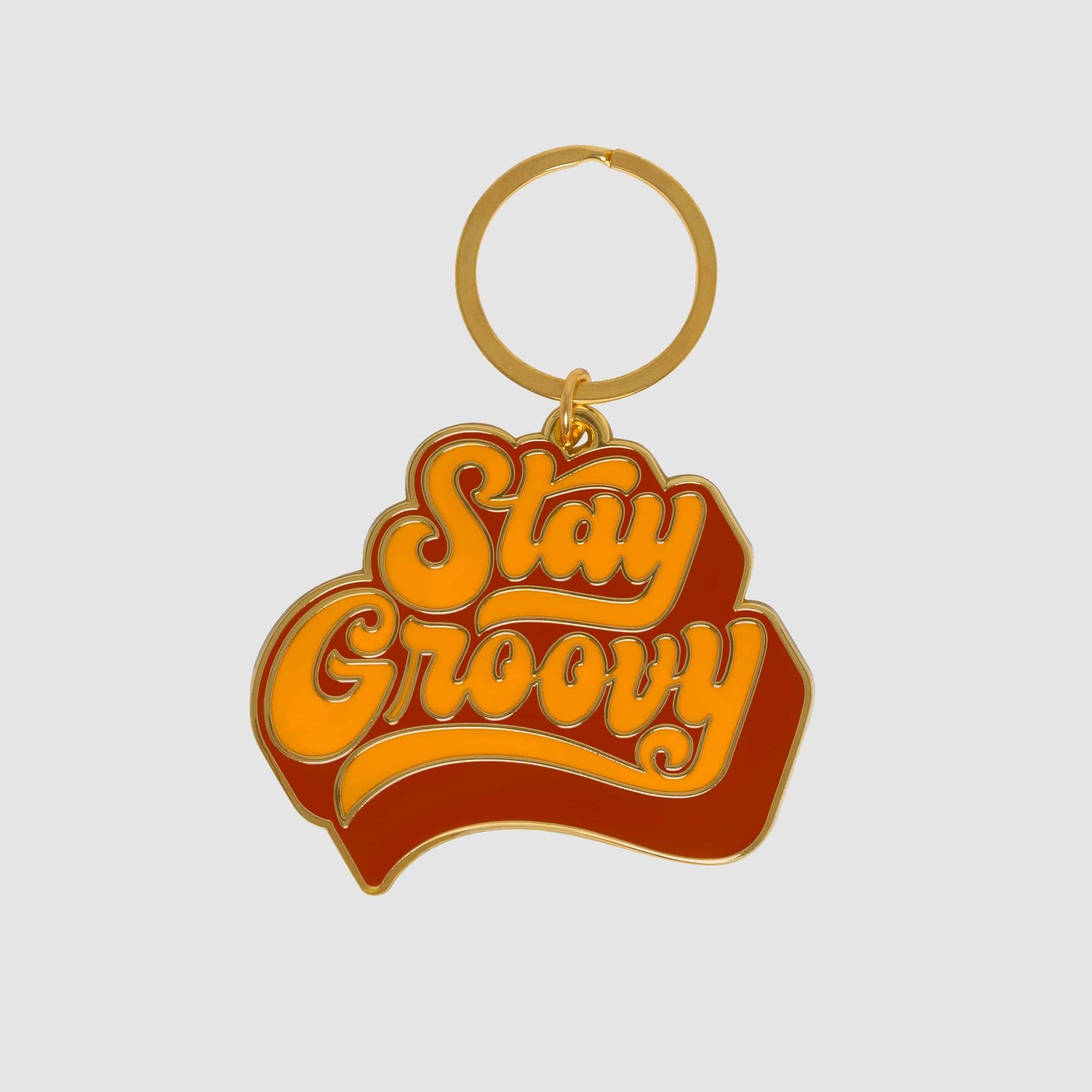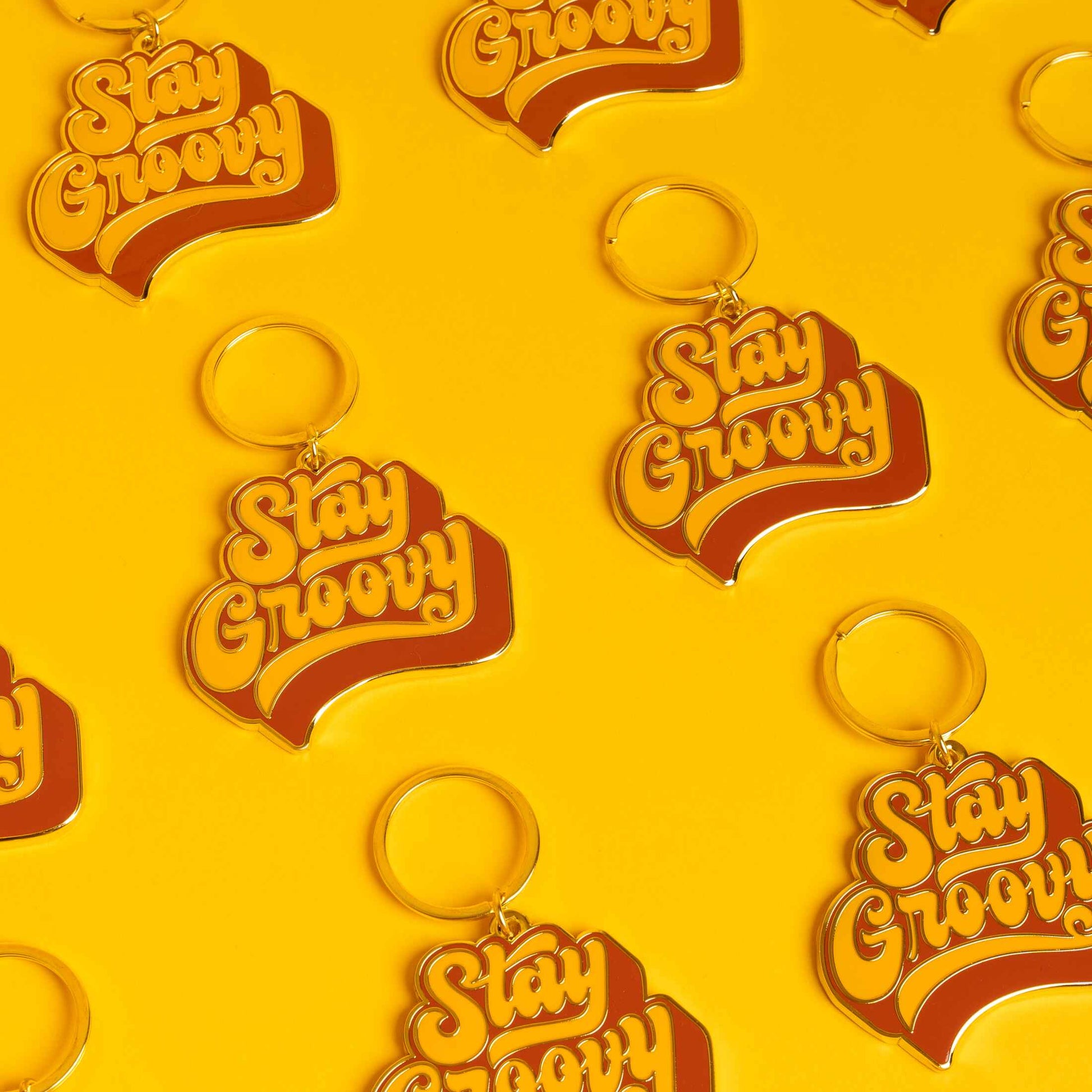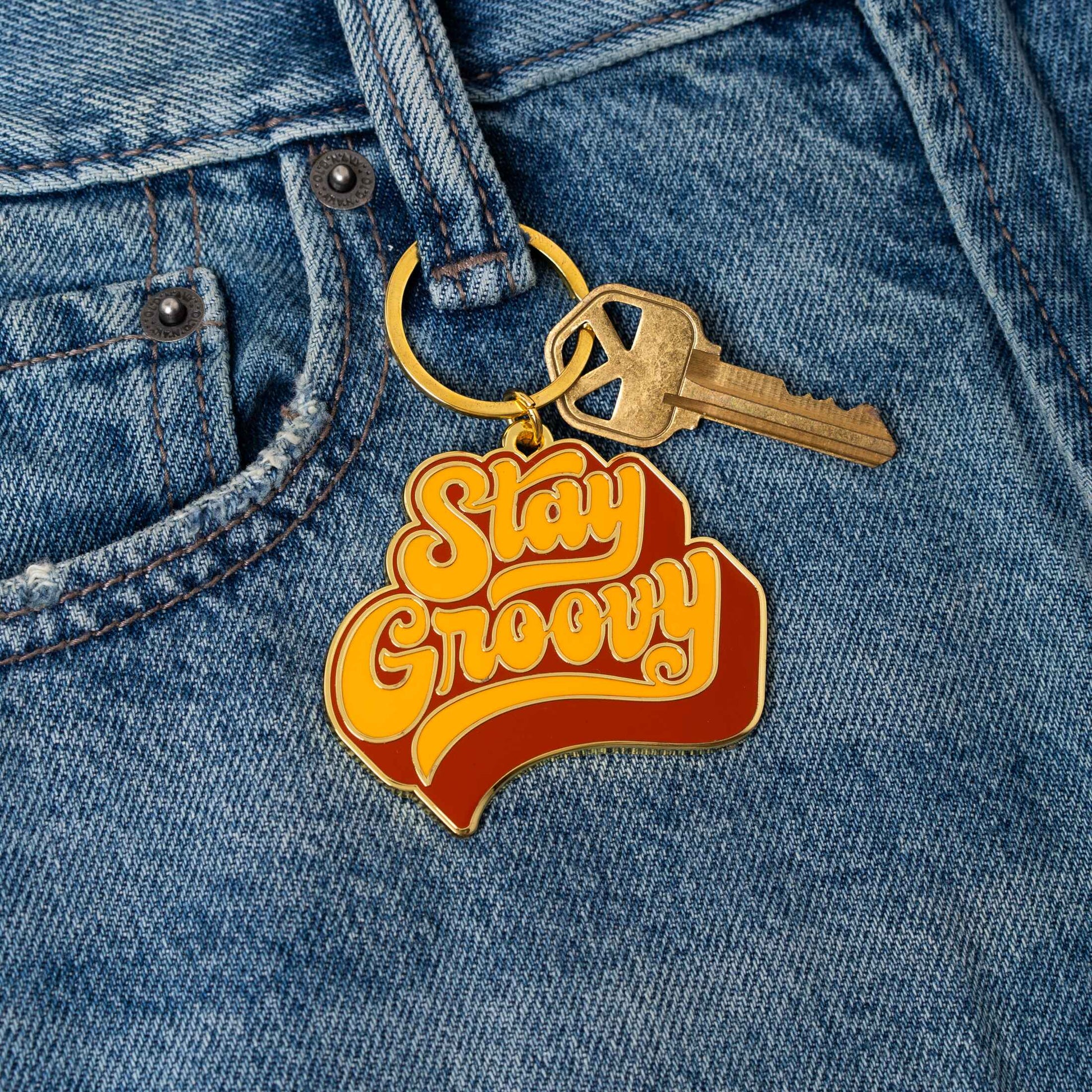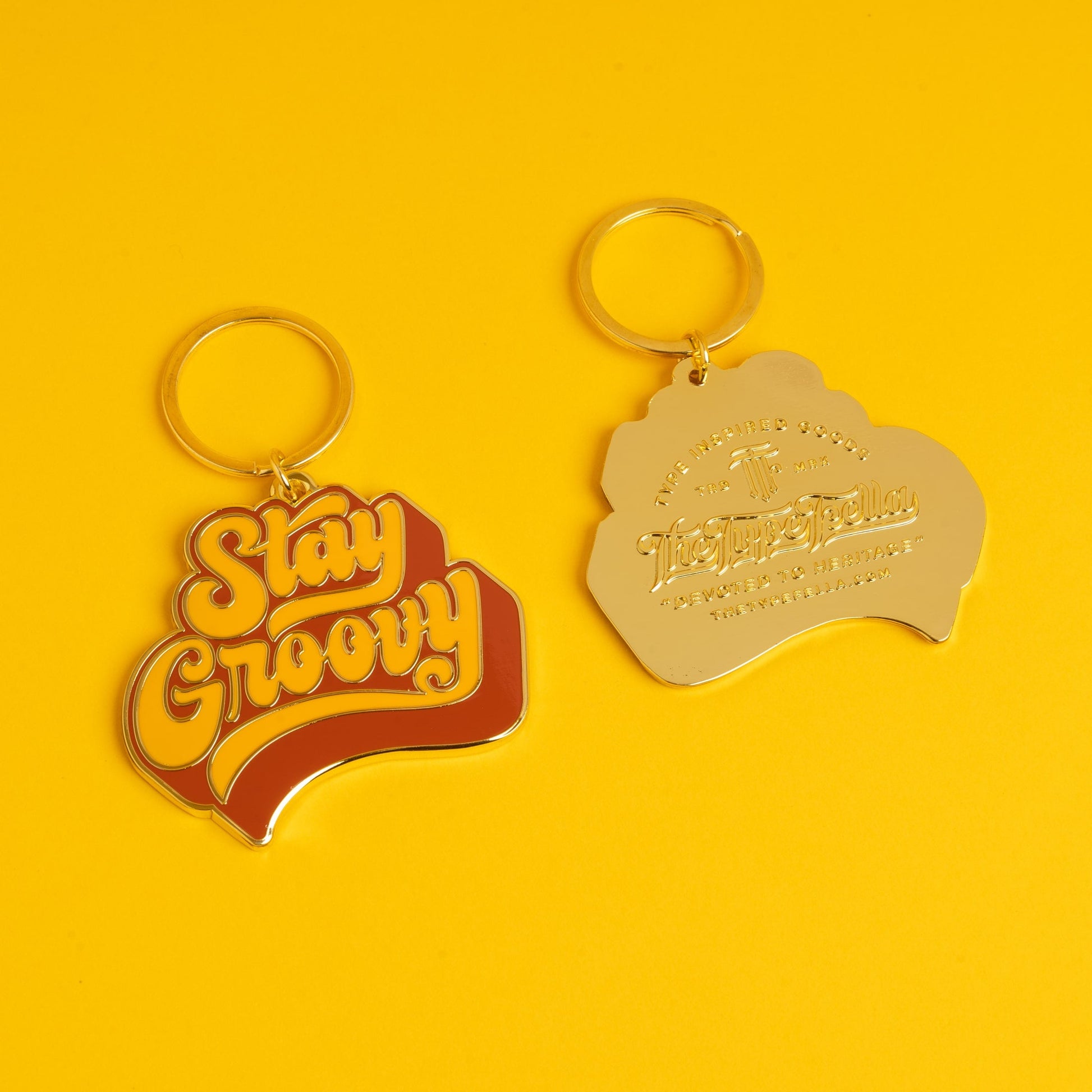
Stay Groovy Keychain
Keep the good times rolling with our Stay Groovy keychain! Whether you're reliving the glory days or simply love the decade of dance and good times, this keychain is perfect for adding a touch of nostalgia to your everyday carry.
– Hand lettered retro script design
– Embossed backside